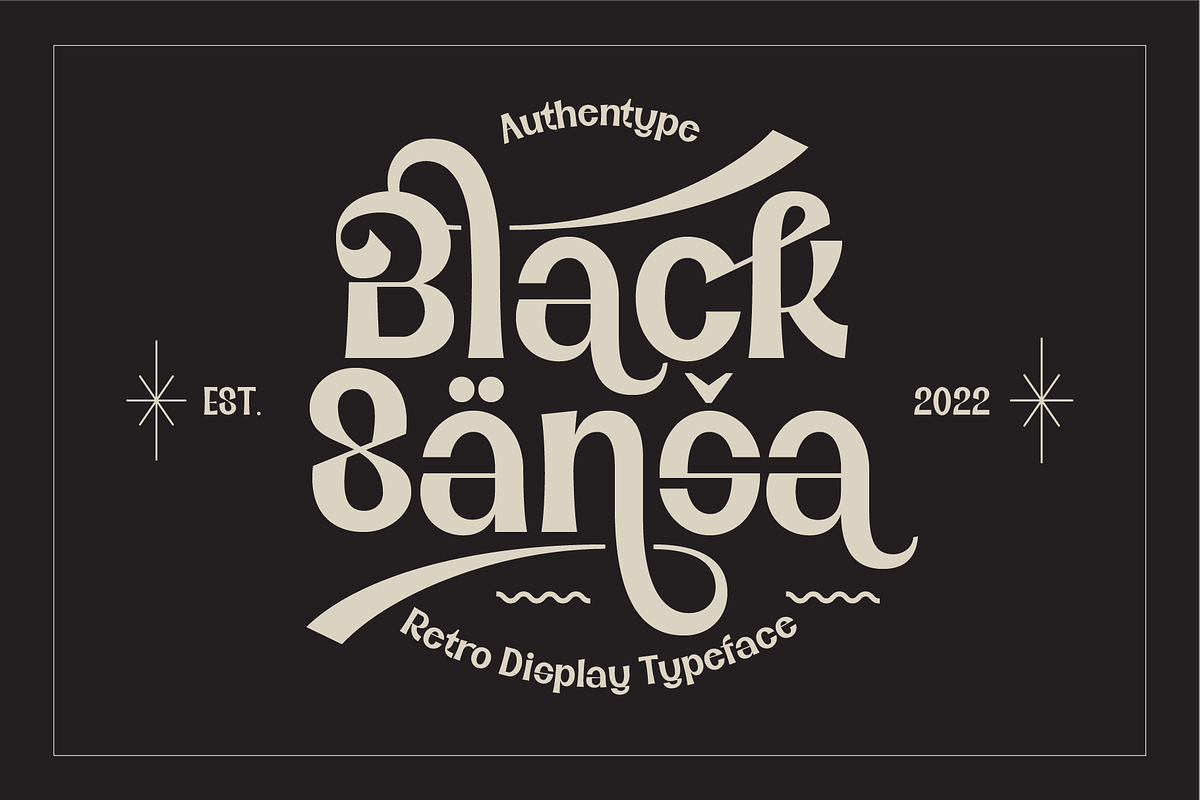
Black Sansa - Retro Display Font Free Download
Bold, groovy, and full of retro flair, Black Sansa - Retro Display Font Free Download is a standout typeface inspired by vintage aesthetics of the ‘60s and ‘70s. Perfect for posters, album covers, branding, packaging, and editorial designs, this font brings a nostalgic yet trendy vibe to any creative project.
With chunky letterforms, smooth curves, and playful energy, Black Sansa is ideal for headlines and eye-catching text treatments. It captures the spirit of a bygone era while staying perfectly relevant for modern, bold design styles.